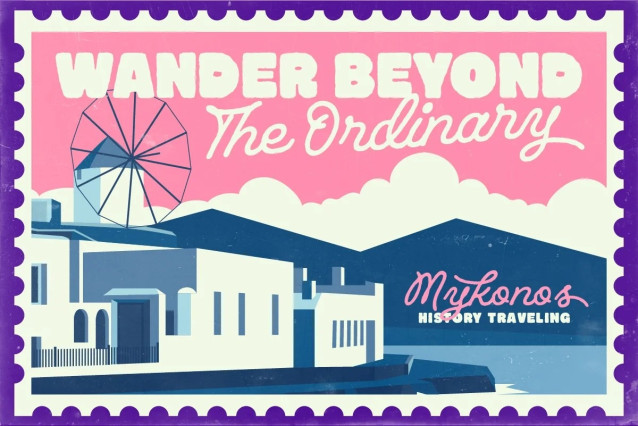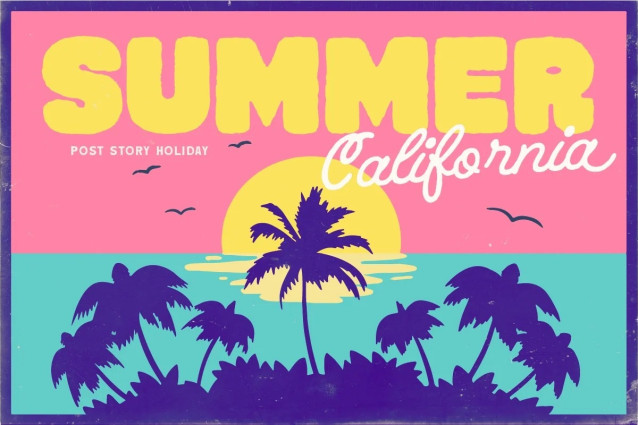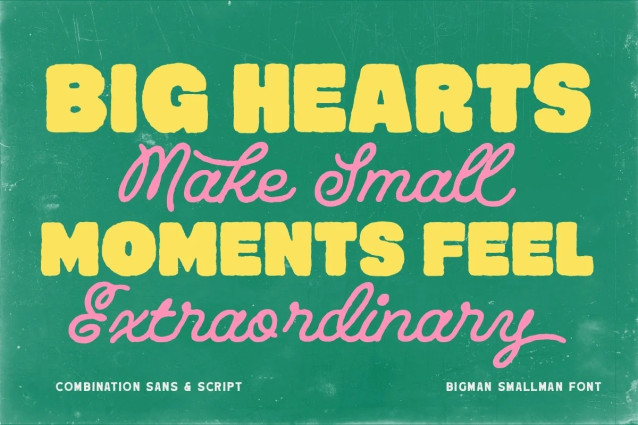
Bigman Smallman packs a lively retro punch with two contrasting personalities that know how to work together. The bold display style comes with chunky, slightly irregular letterforms and a wonderfully rough poster character, while the flowing script adds a loose handwritten rhythm that softens the heavier shapes.
- Uppercase & lowercase
- Numbers and punctuation
- Alternate Characters
- Multilingual Support